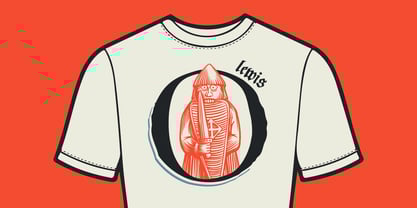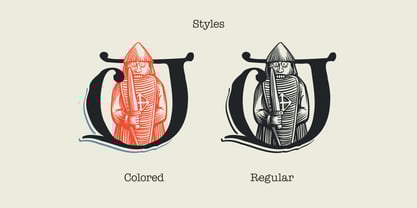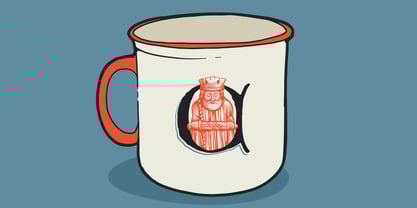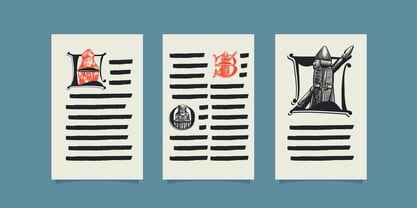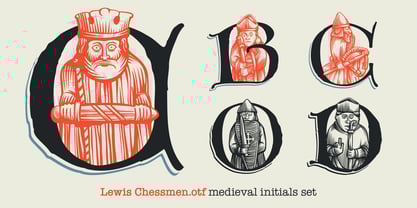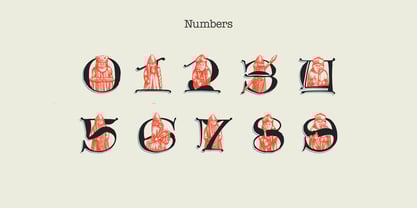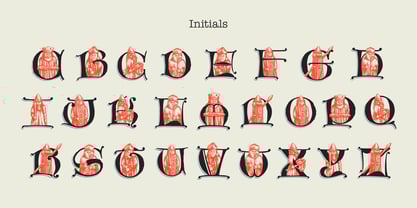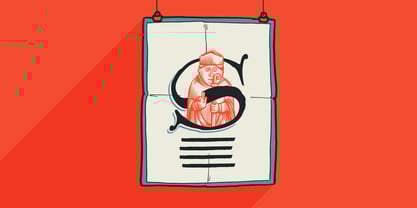
Lewis Chessmen
The Lewis Chessmen Font Family was designed by Roman Korolev and published by Kaer. Lewis Chessmen contains 2 styles and family package options.
Lewis Isles Font – Medieval Initials with Chesspiece Engravings
Step into the medieval world with Lewis Isles, a decorative display font inspired by the legendary Lewis chessmen. Each initial letter features detailed engravings of kings, shield-biting berserkers, knights, and bishops — all based on the iconic 12th-century figures discovered on the Isle of Lewis.
Perfect for fantasy titles, book covers, tabletop games, and historical projects.
Includes:
• A–Z uppercase initials with illustrated engravings
• Numbers set
• Medieval-style body font
• High-detailed vector drawings
Bring the mystique of the North Atlantic past to your typography.